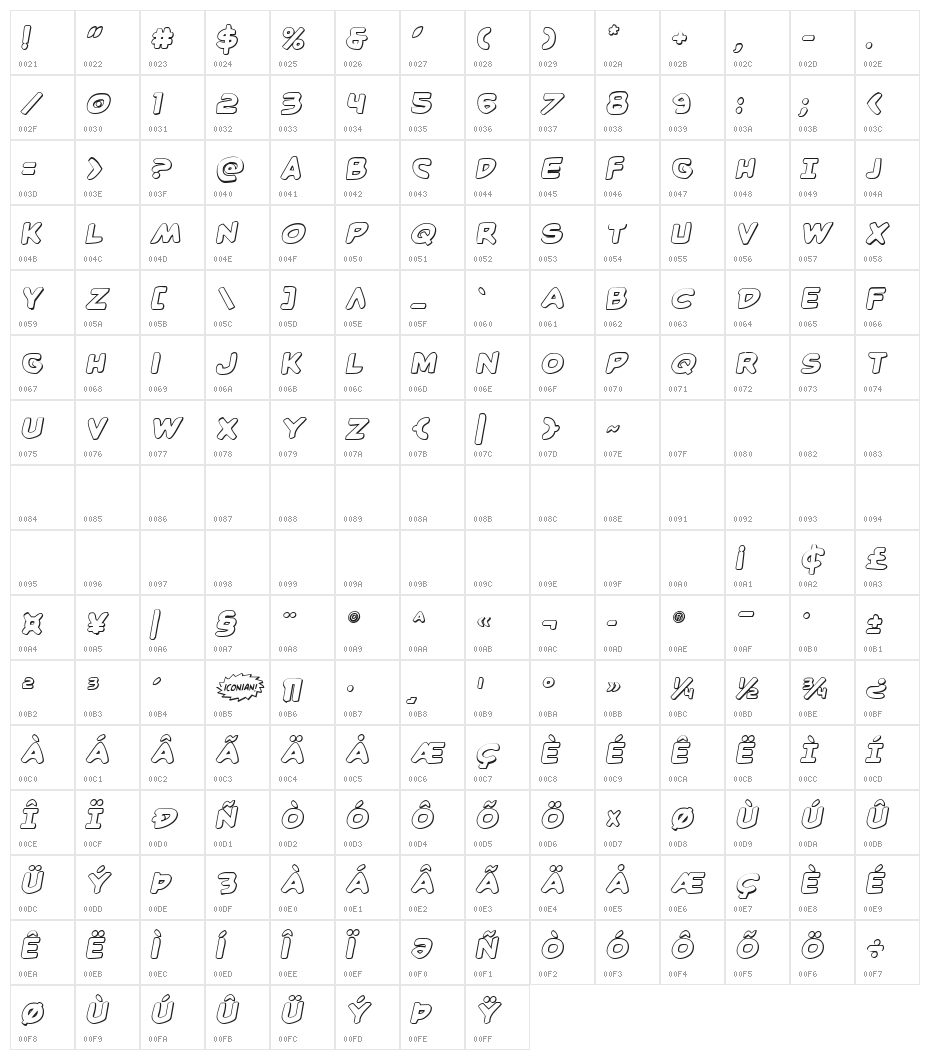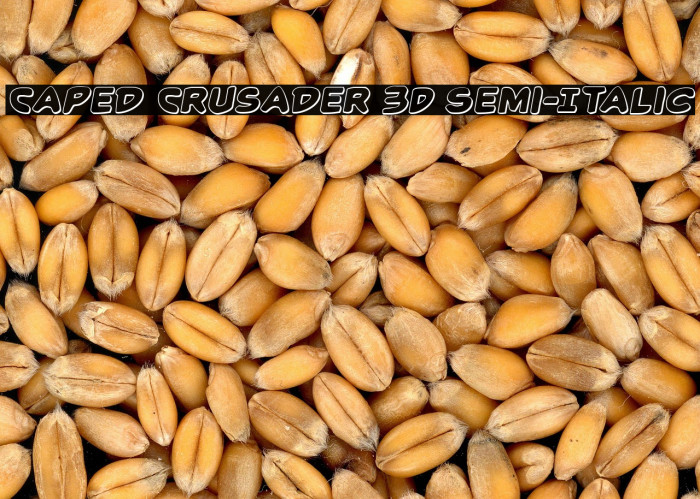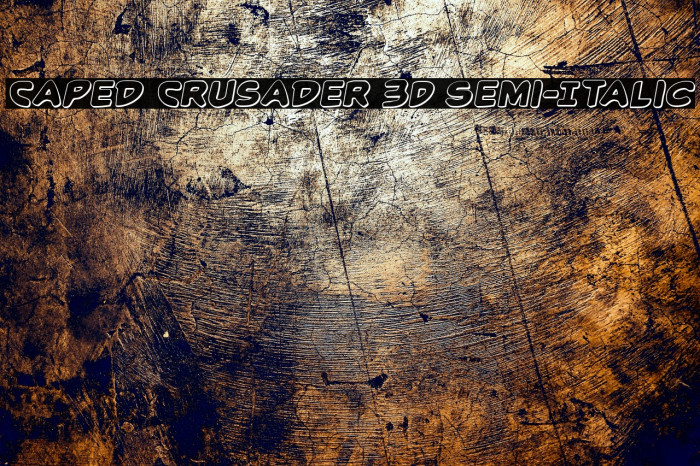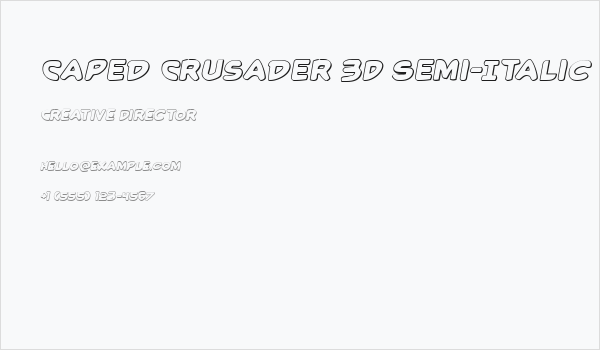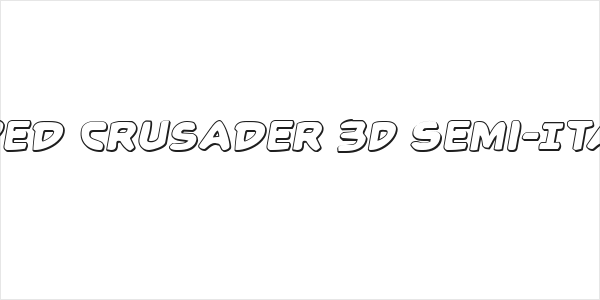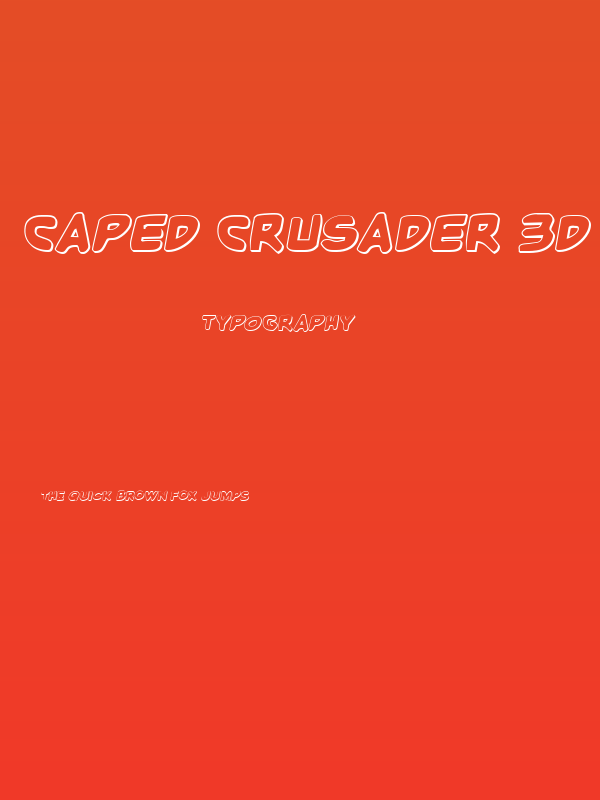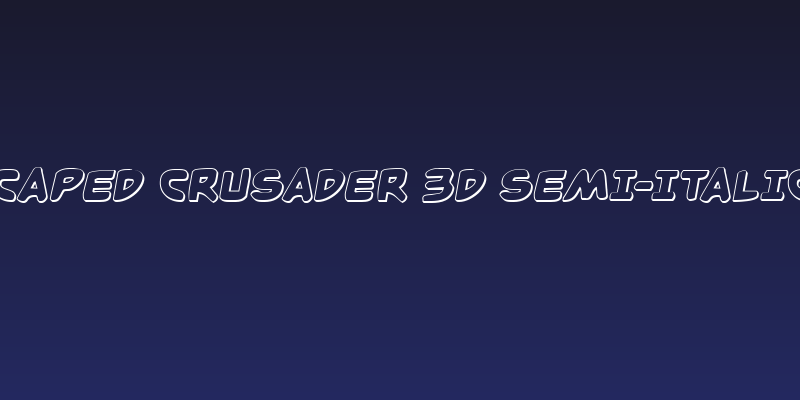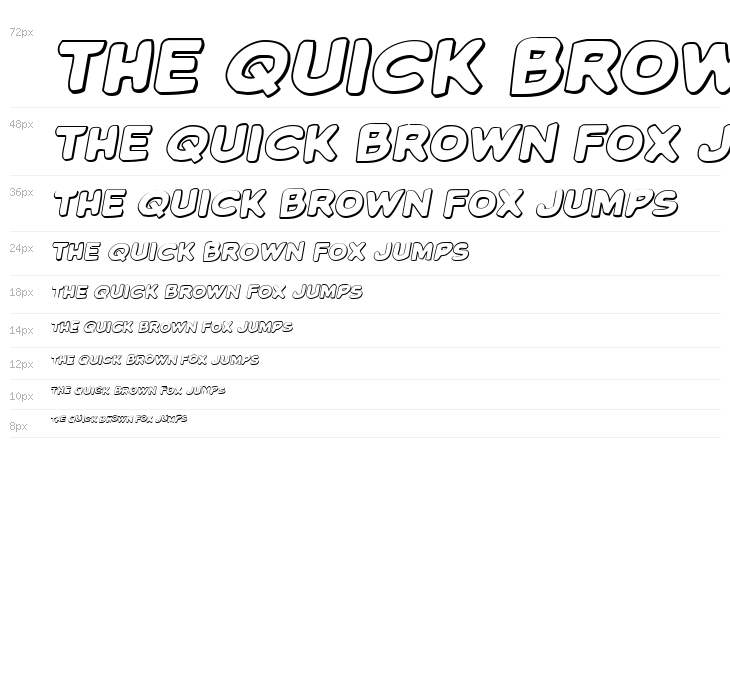
Caped Crusader 3D Semi-Italic Font
Caped Crusader 3D Semi-Italic Description
This font features a bold, three-dimensional appearance with a semi-italic slant, giving it a dynamic and playful look. The characters are outlined, creating a hollow effect that adds depth and visual interest. The style is reminiscent of comic book lettering, with rounded edges and a slightly exaggerated form that enhances its playful nature. The font maintains consistent stroke thickness throughout, providing a uniform and cohesive appearance. Its unique design makes it suitable for projects that require a fun and engaging aesthetic.
| Overall Style | Playful, Comic |
| Proposed Projects | Ideal for comic books, children's book covers, playful branding, and eye-catching posters. |